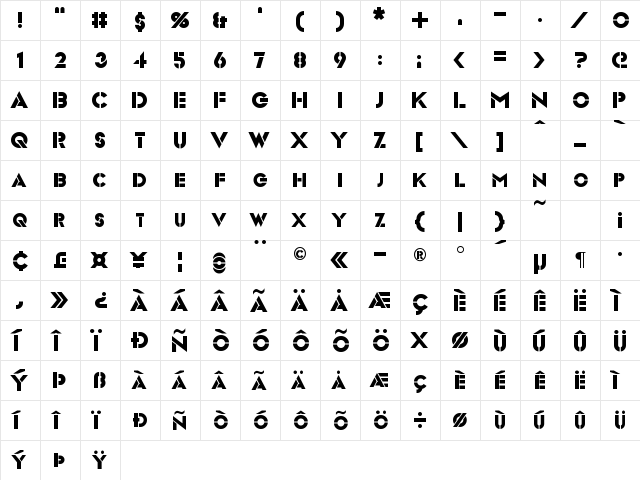
Videopac Regular
| Foundry | Pixel Sagas |
| Designer | Neale Davidson |
Design Context for Videopac Typeface
Videopac offers clean, dependable letterforms without strong stylistic allegiance, making it a practical choice for designers who need flexibility.